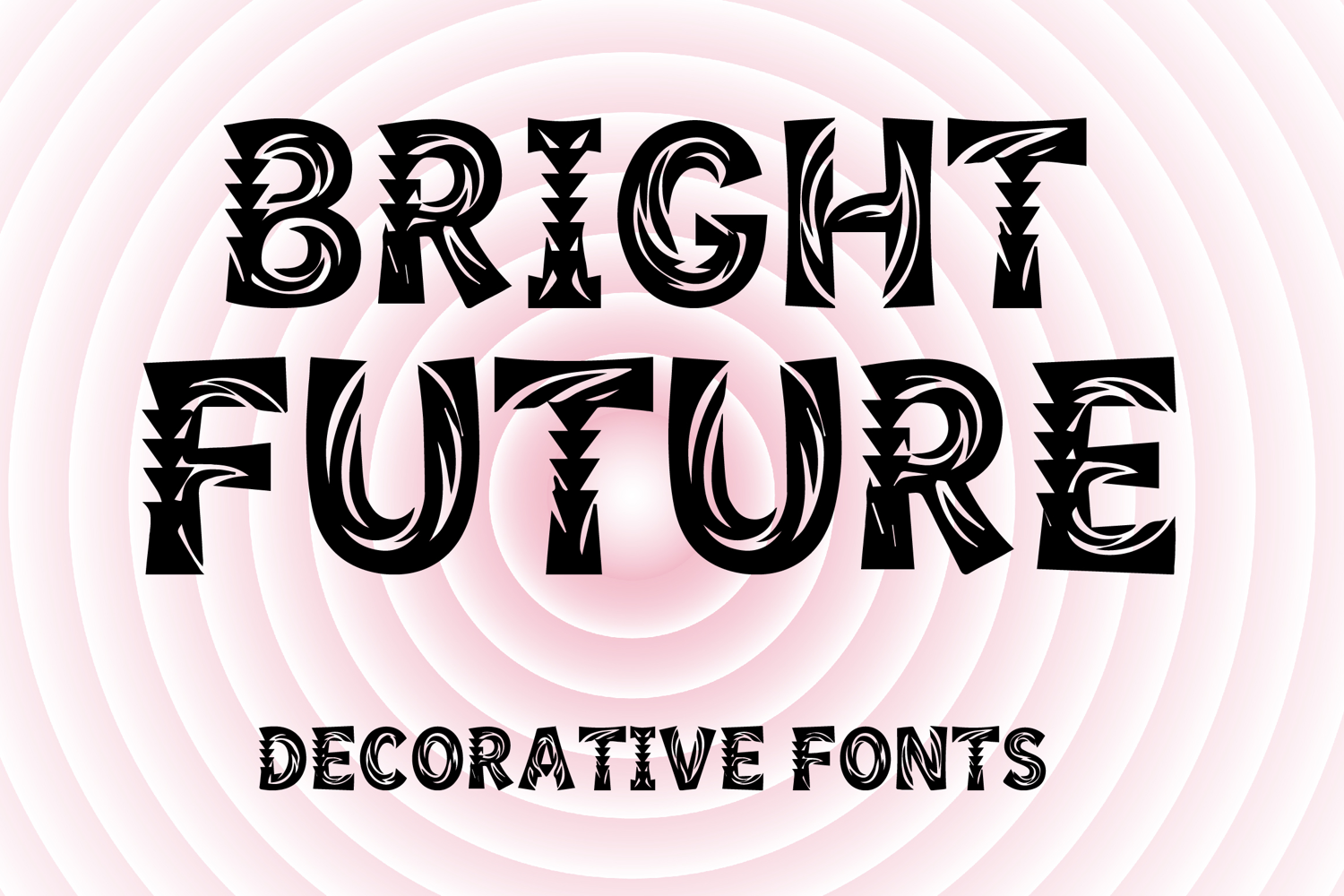
BRIGHT FUTURE
BRIGHT FUTURE is a bold decorative display font with a striking modern style and expressive artistic flair. Its uppercase letterforms feature strong block shapes, carved inner details, and sharp geometric accents that create a dramatic, stylish, and eye-catching look. Designed with uppercase letters A–Z and numbers 0–9, BRIGHT FUTURE is perfect for branding, posters, packaging, book covers, logos, headlines, and creative projects that need a bold and unforgettable statement.